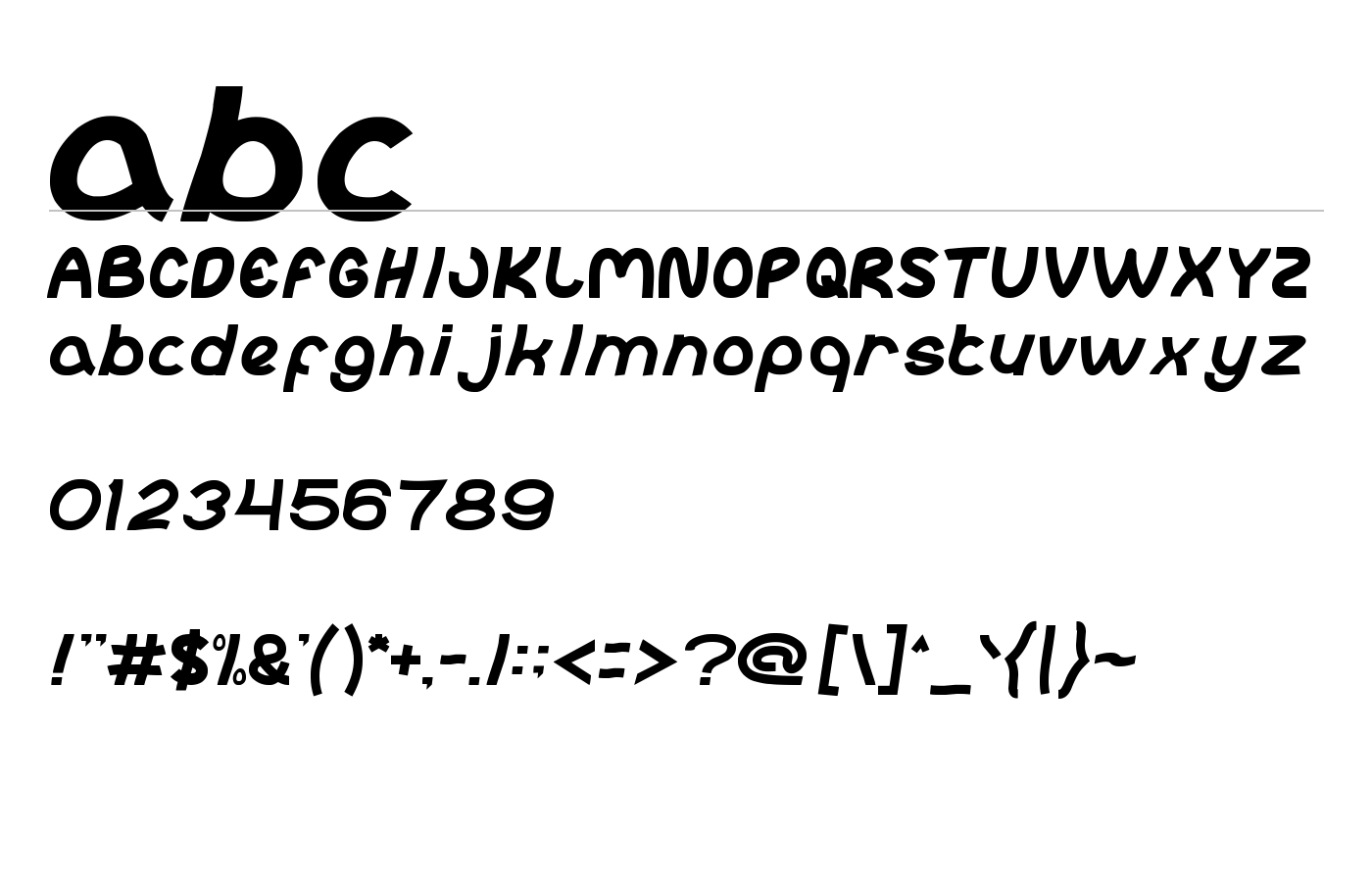
abc Font is a playful and informal sans serif typeface with a slightly condensed width and medium x-height, featuring rounded and quirky letterforms that bring a friendly and approachable vibe. Its moderate stroke contrast and unique curves make it ideal for casual branding, children’s books, or creative projects, providing clarity while adding character and warmth. This font works well in headlines, logos, and any playful design context where a fun and inviting tone is desired.